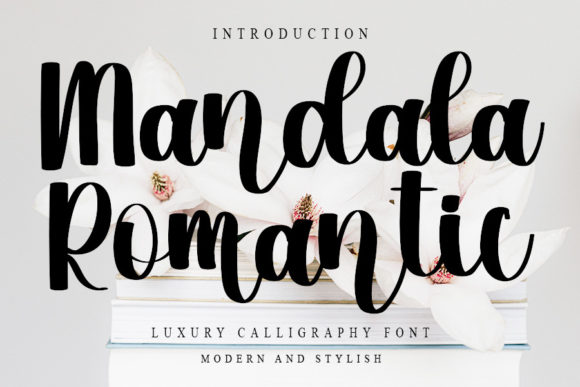
Introducing Mandala Romantic, the Enchanting Script Font for Your Design Dreams
Prepare to be captivated by Mandala Romantic, a font that embodies grace and sophistication. Its delicate curves and flowing strokes dance across your designs, evoking a sense of timeless elegance. Created exclusively by FreshTypeINK, this script font is a masterpiece tailored for those seeking a touch of beauty and freshness in their creative endeavors.
Step into a world of endless possibilities with Mandala Romantic. Its versatile nature makes it an ideal choice for a myriad of design projects. Whether you're crafting captivating logos, designing alluring invitations, or creating captivating social media posts, this font will add an unforgettable touch of charm.
Indulge in the allure of Mandala Romantic and experience the joy of creating designs that resonate with your audience. Its intricate details and effortless flow will captivate their attention, leaving a lasting impression that sets your work apart.
Don't settle for ordinary fonts; embrace the extraordinary with Mandala Romantic. Its unique beauty and versatility will transform your designs into works of art, reflecting your refined taste and creative flair.